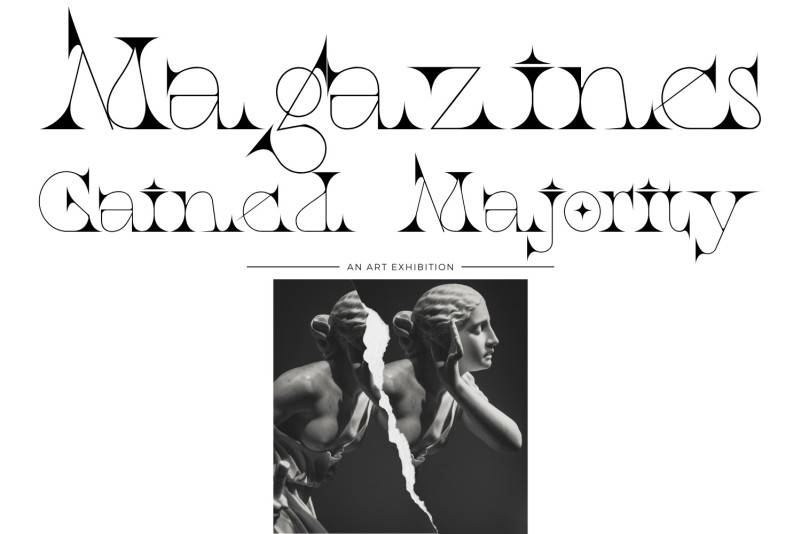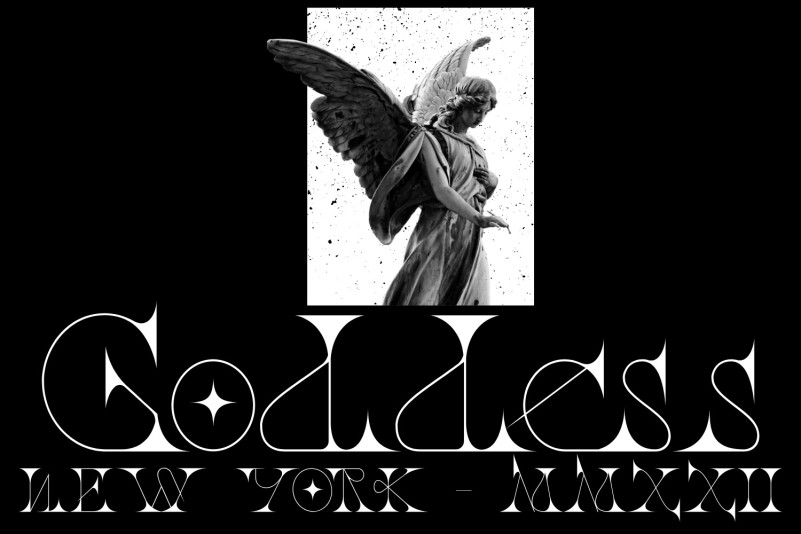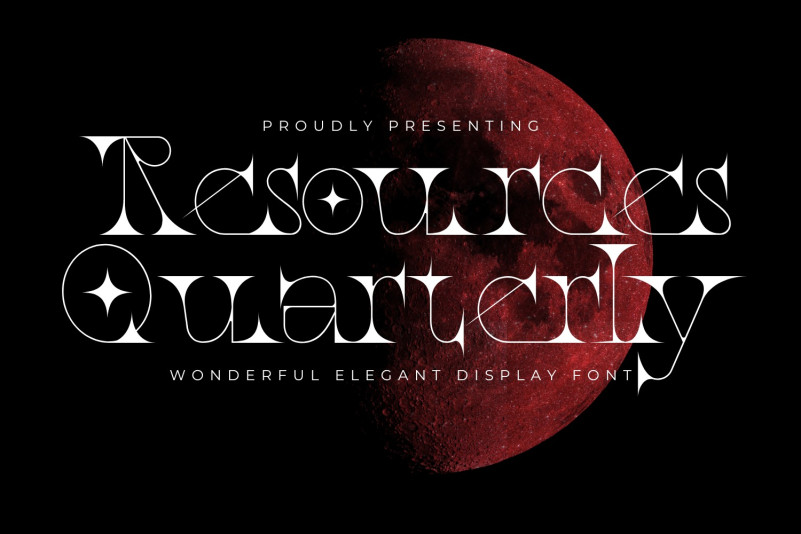
Resources Quarterly Font
Resources Quarterly Serif Font is a fun quirky look serif. With a modern look, a lightweight elegance in romantic curves with a glitchy and fluid aesthetic. This font is good for logo design, Social media, Movie Titles, Books Titles, short text even long text letters, and good for your secondary text font with the script, sans, or serif.
To make it look more unique, here we prepared some ligatures:
ab as af ai ah ak am an ar bs cf ch ci ck cm cn cr cs df dh di dk dm dn dr ds ef eh ei ek em en er es us uk uh ub sa qr nx ns nh nb mx ms mh mb ks kh kb if ii ib ip it hi hn hr hs ff fh fk ft fl